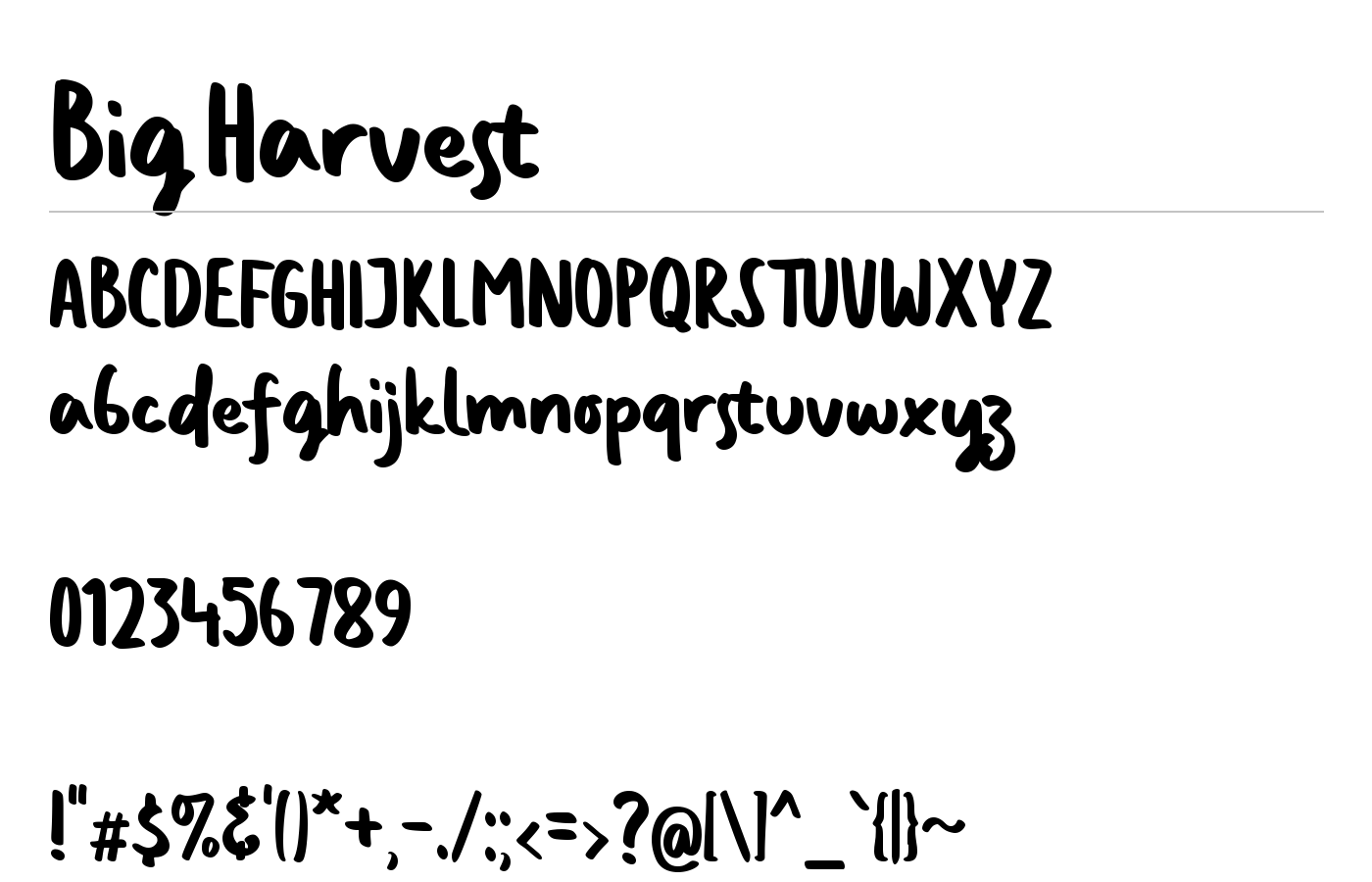
Big Harvest is a playful, hand-drawn sans serif font with a casual and friendly feel. Its slightly irregular shapes and bold weight give it an approachable, warm personality that’s perfect for designs needing a personal, fun touch. This font works well for children’s books, informal branding, posters, and any project that benefits from a lively, hand-crafted look.
Big Harvest Font
About Big Harvest Font
| Font family | Big Harvest Font |
| Designer | Masa Aska Sanurumi |